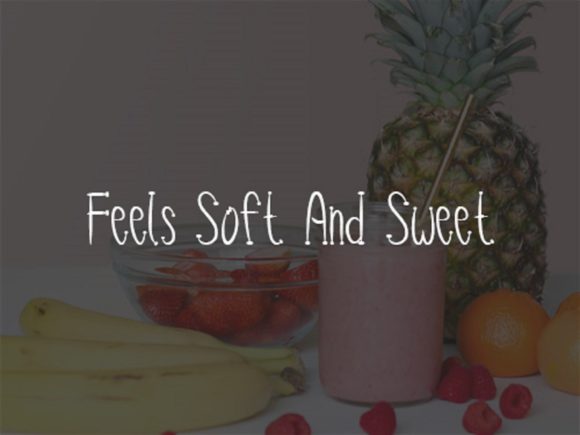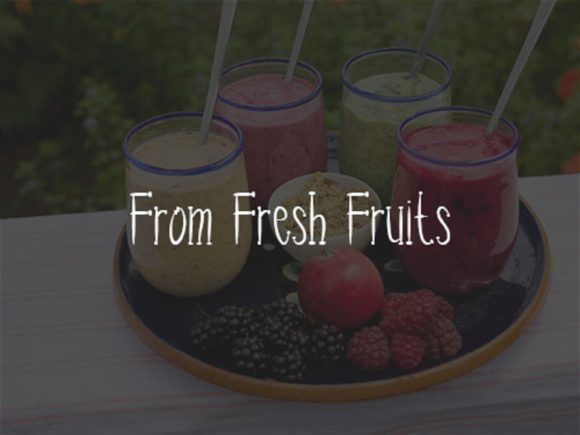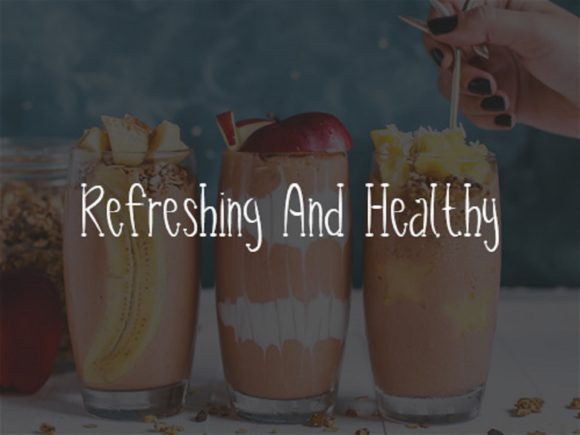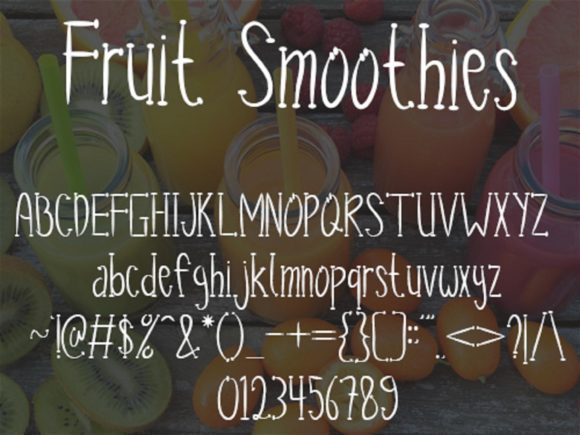
Fruit Smoothies Font
About Fruit Smoothies Font
Fruit Smoothies simple, quirky and cute handwritten font. Its natural and unique style makes it incredibly fitting to a large pool of designs. The only limit is your imagination!